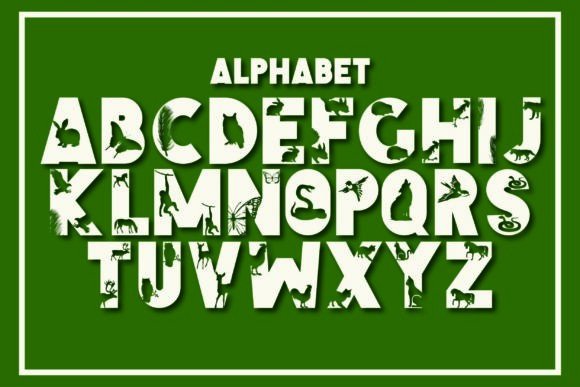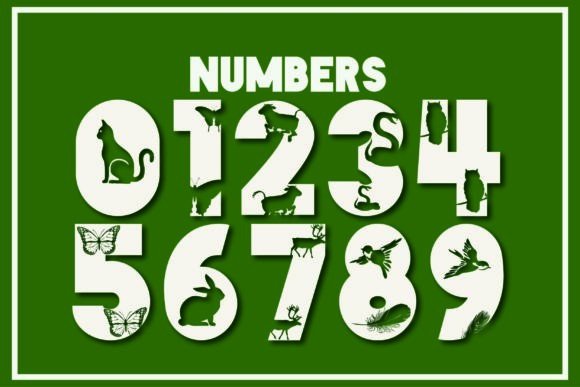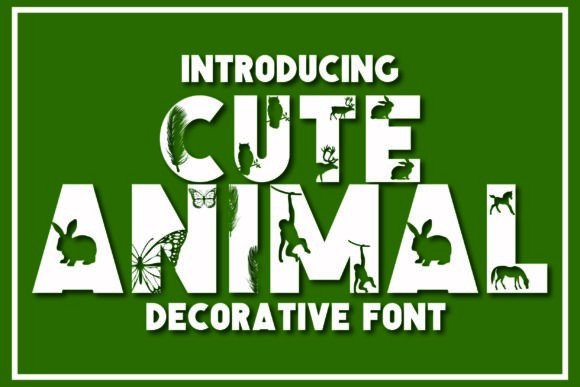
Cute Animal Font: Add a Playful Touch to Your Designs
Are you tired of using the same old fonts in your designs? Do you want to add a playful and unique touch to your creative projects? Look no further than the Cute Animal Font! This delightful font features adorable animals as ornaments, making it perfect for designers and crafters who want to bring a smile to their audience’s faces.
What is Cute Animal Font?
Cute Animal Font is a specially designed decorative font that showcases a variety of cute animals as ornaments. The font is playful, fun, and uniquely designed to add a joyful touch to your designs. Whether you’re working on a children’s book, a craft project, or a marketing campaign, this font is sure to make your designs stand out.
Features of Cute Animal Font
- Unique Design: The Cute Animal Font features a one-of-a-kind design that showcases adorable animals as ornaments. Each letter is carefully crafted to incorporate a cute animal, making it a standout font for any design project.
- Playful and Fun: The font is designed to be playful and fun, making it perfect for designs that require a lighthearted touch. Whether you’re creating a children’s product or a social media graphic, this font is sure to bring a smile to your audience’s faces.
- High-Quality Design: The Cute Animal Font is designed with high-quality graphics, ensuring that it looks great in any design project. The font is perfect for both digital and print designs, making it versatile and easy to use.
- Easily Customizable: The font is easily customizable, allowing you to adjust the size, color, and style to fit your design needs.
Uses of Cute Animal Font
The Cute Animal Font is versatile and can be used in a variety of design projects, including:
- Children’s Products: The font is perfect for children’s books, educational materials, and toys.
- Craft Projects: The font is great for craft projects, such as scrapbooking, card making, and DIY signs.
- Marketing Campaigns: The font can be used in marketing campaigns, such as social media graphics, flyers, and brochures.
- Digital Designs: The font can be used in digital designs, such as website headers, blog posts, and email newsletters.
Benefits of Using Cute Animal Font
Using the Cute Animal Font in your designs offers several benefits, including:
- Unique and Playful Touch: The font adds a unique and playful touch to your designs, making them stand out from the crowd.
- Emotional Connection: The font helps create an emotional connection with your audience, making them more likely to engage with your design.
- Versatility: The font is versatile and can be used in a variety of design projects, making it a great addition to your font library.
The Cute Animal Font is a playful and uniquely designed decorative font that adds a joyful touch to any design project. With its unique design, playful and fun style, and high-quality graphics, this font is perfect for designers and crafters who want to bring a smile to their audience’s faces. Whether you’re working on a children’s product, a craft project, or a marketing campaign, the Cute Animal Font is sure to make your designs stand out. So why wait? Download the Cute Animal Font today and start creating playful and fun designs that bring joy to your audience!